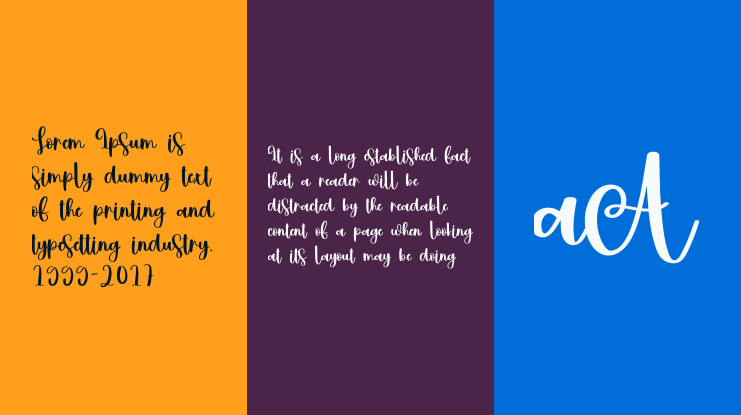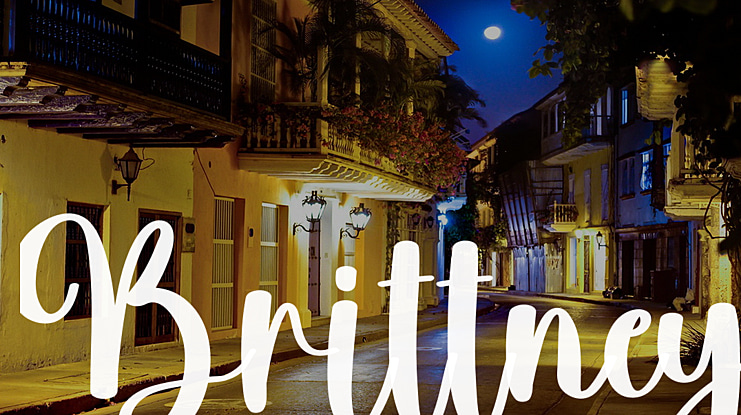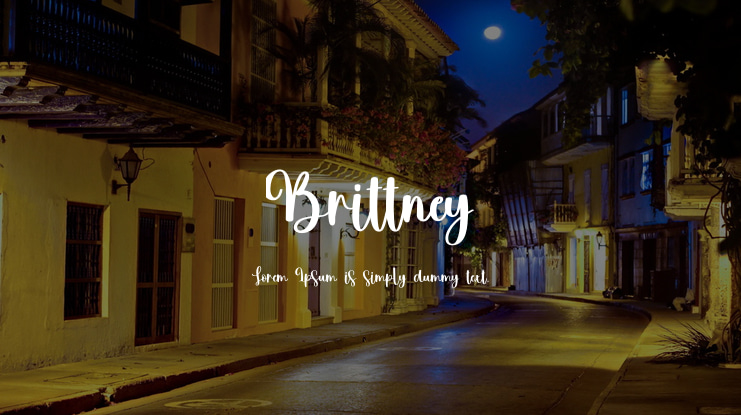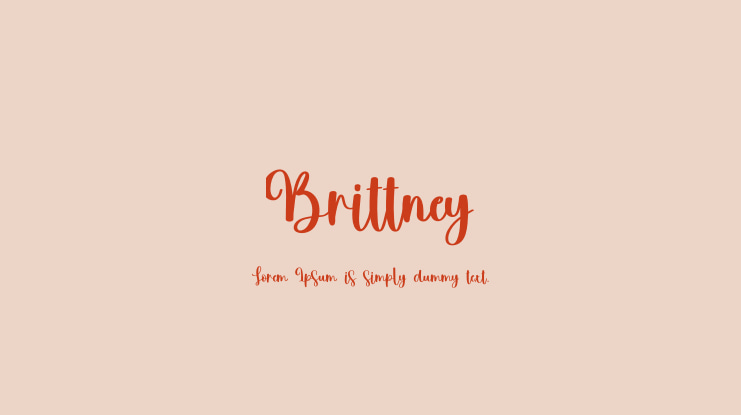
Brittney Font
This font is perfect for your creative ideas, both formal and informal. It has a modern style with a touch of creative ideas that is very suitable to be applied anywhere that requires creative ideas such as invitation cards, letterheads, website logos, social media, banners, advertisements, brochures, packaging products, leather products, and any product that requires writing.
By using this font, all of your products will look luxurious, elegant, and attractive, please try and see the results.
the latest style letters are perfect for wall displays, wedding invitations, social media post logos, advertisements, product packaging, product designs, labels, photography, watermarks, invitations, stationery, and any project that requires taste handwriting.